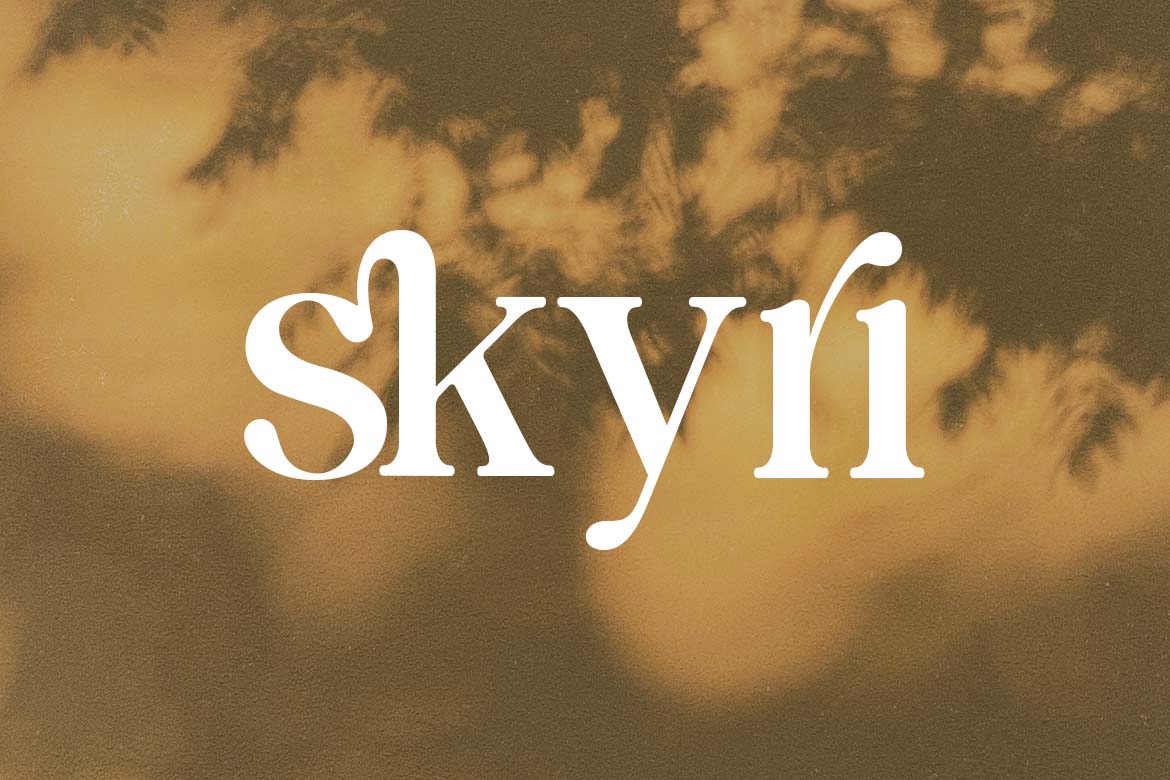
Retro Gramophone Vintage Serif Font
Introducing our new product the name is Retro Gramophone Vintage Serif Font. Retro Gramophone Vintage Serif Font that feels beautiful classy, elegant, and modern. This font is perfectly suited for a wide variety of projects, such as signature, stationery, logo, wedding, typography quotes, magazine or book covers, website headers, clothing, branding, packaging design, and more. Also, fashion-related branding or editorial design displays both masculine and feminine qualities.
Retro Gramophone is a captivating vintage serif font that transports viewers to the golden age of analog sound and classic typography. This nostalgic typeface features ornate serifs and carefully crafted letterforms that evoke the elegant craftsmanship of early 20th-century design, reminiscent of the decorative elements found on classic gramophone players and vintage record labels. The font’s distinctive character combines historical inspiration with modern technical refinement, creating a perfect balance between authentic vintage charm and contemporary usability for today’s design projects.
Drawing from the rich typographic heritage of the 1920s and 1930s, Retro Gramophone showcases decorative terminals, variable stroke weights, and subtle imperfections that capture the warm, authentic feel of letterpress printing and hand-drawn typography from the gramophone era. These thoughtful details give the font a genuine vintage personality while maintaining excellent readability across various applications, from packaging and branding to editorial design and digital media.
Ideal for projects that aim to evoke nostalgia, Retro Gramophone Vintage Serif Font excels in vintage-inspired branding, album covers, event invitations, historical references, and any design that seeks to capture the timeless elegance and character of early 20th-century typography. Its versatile character set provides designers with the perfect tool to create authentic period pieces or add a touch of classic sophistication to contemporary designs.
Retro Gramophone Vintage Serif Font Features:
- Decorative Serif Characters with Nostalgic Details
- Complete Punctuation, Numerals, and Vintage Ornaments
- Full Uppercase and Lowercase Character Sets
- Special Vintage Ligatures and Stylistic Alternates
- Distressed Variants for Authentic Aged Appearance
- Ornamental Borders and Decorative Elements
- Period-Appropriate Number Styles and Fractions